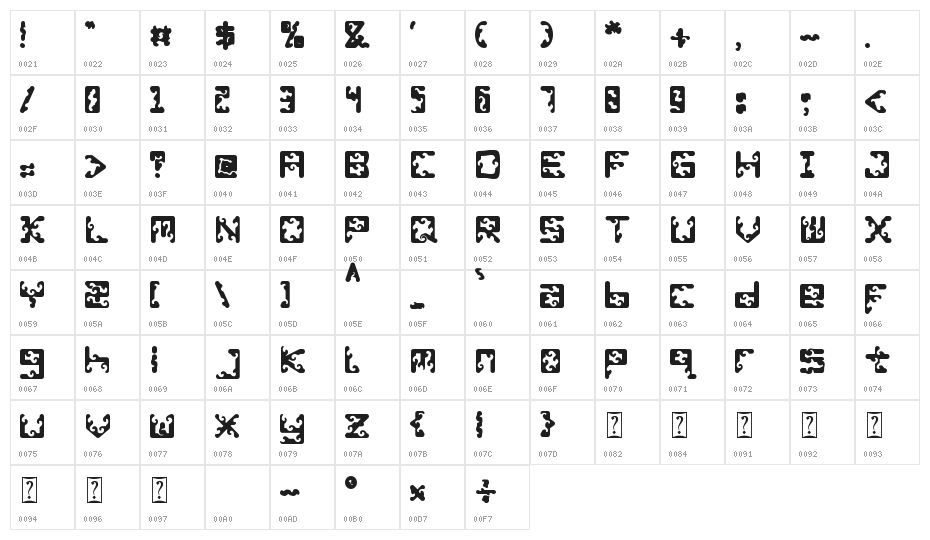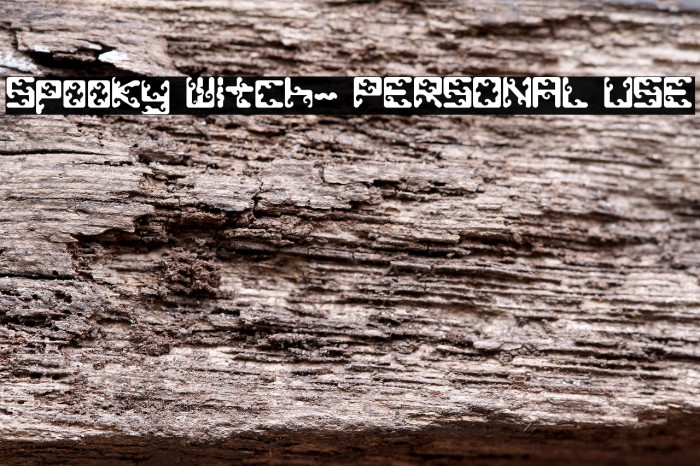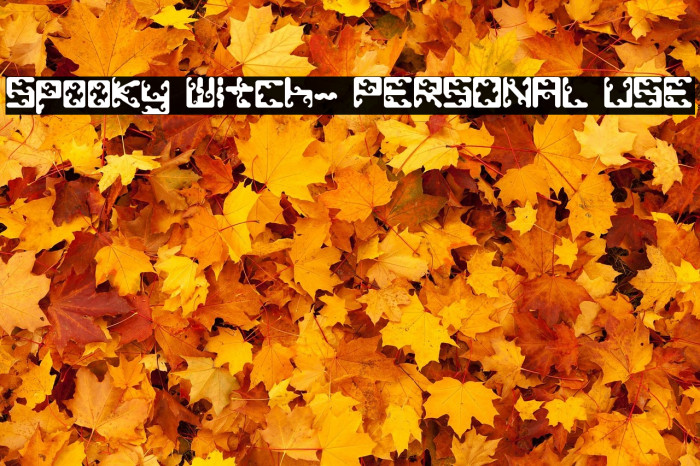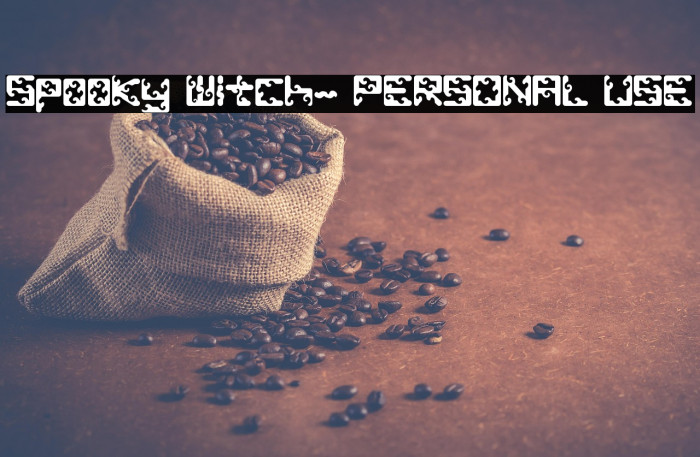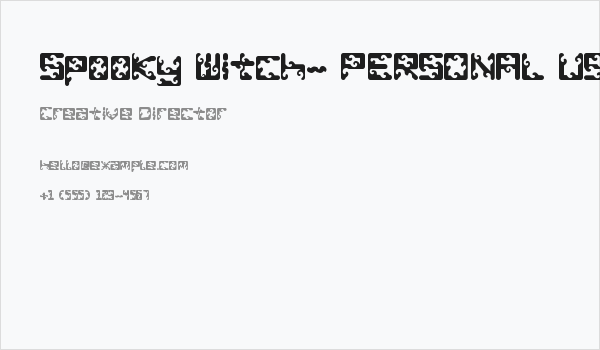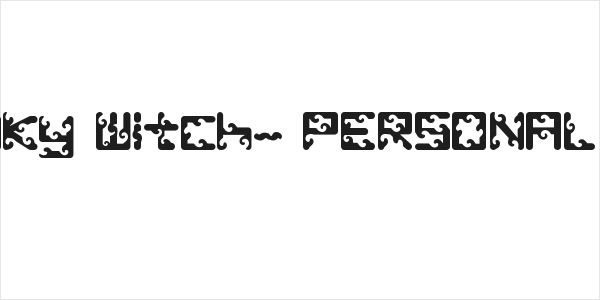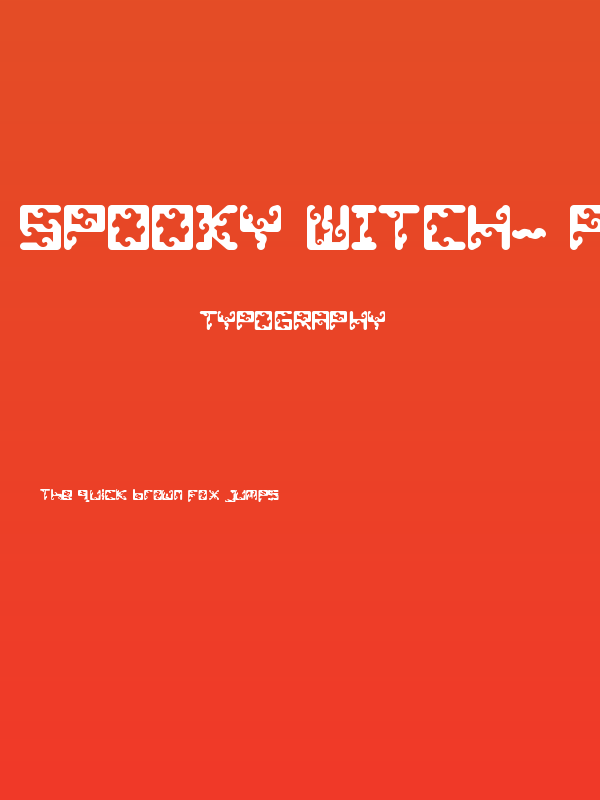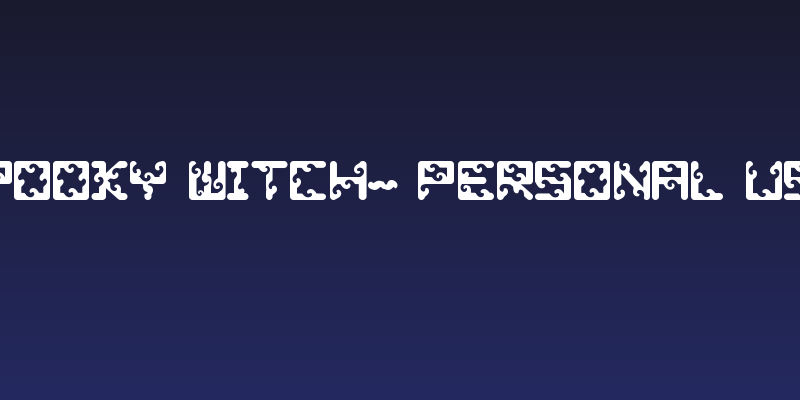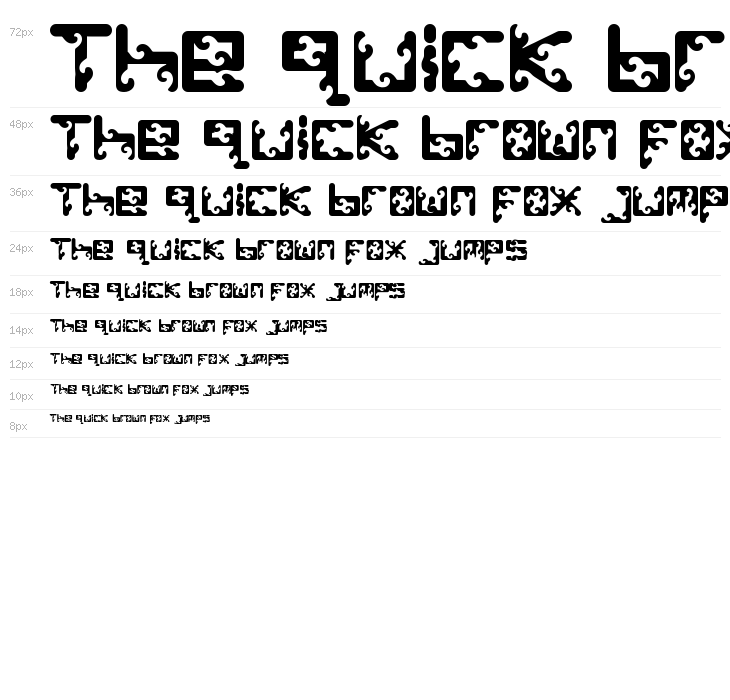
Spooky Witch- PERSONAL USE Font
Spooky Witch- PERSONAL USE Description
This font features a playful and spooky design, with each character appearing as if it is melting or dripping. The letters are bold and have a unique, irregular shape that gives them a ghostly, haunted appearance. The style is reminiscent of Halloween themes, making it perfect for seasonal designs. The uppercase and lowercase letters maintain a consistent style, with numbers and special characters also following the same eerie aesthetic. The font's boldness and distinctive character shapes make it stand out, while the irregular edges add to its whimsical charm.
| Proposed Projects | Ideal for Halloween invitations, spooky event posters, themed party decorations, and horror movie titles. |